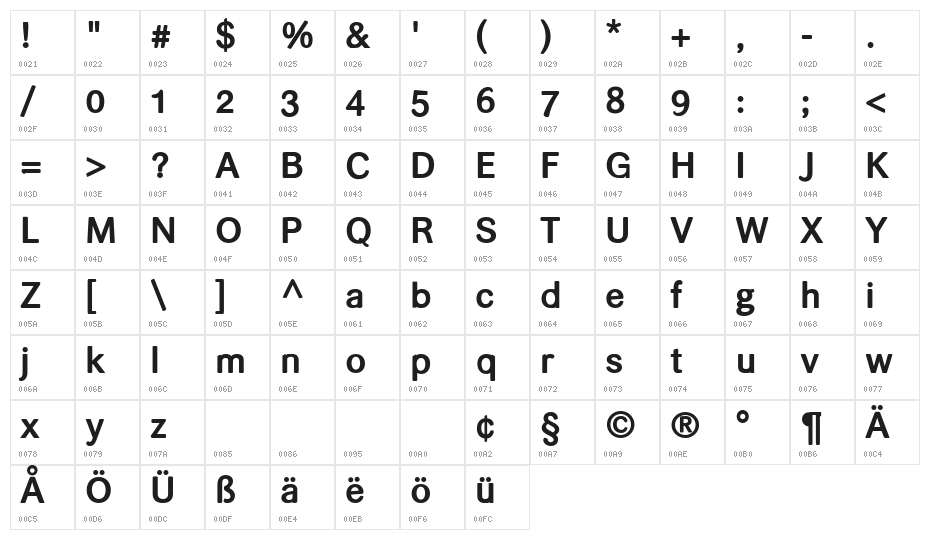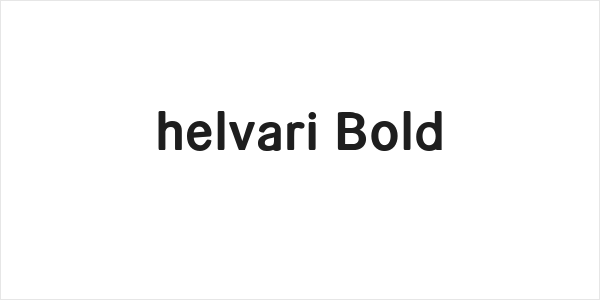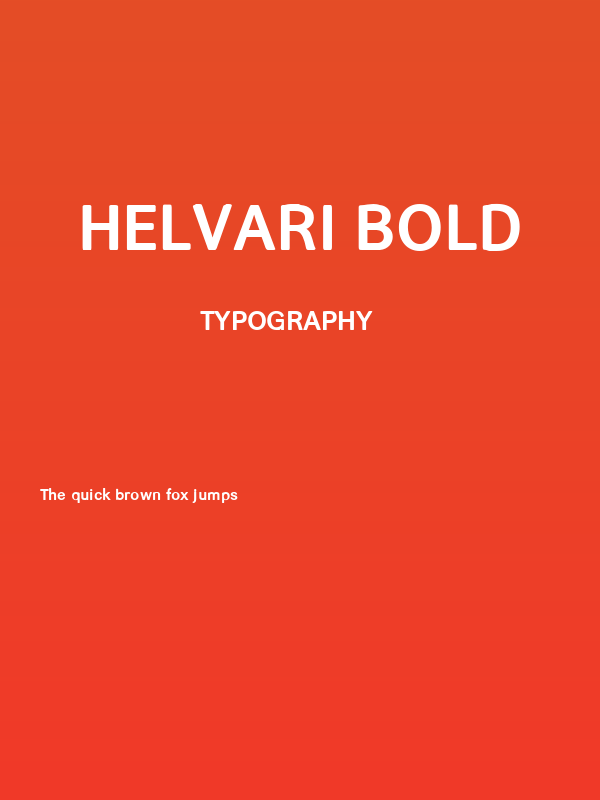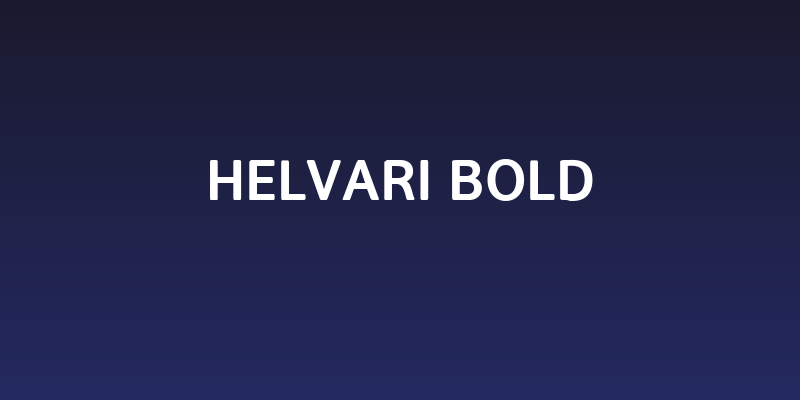
helvari Bold Font
helvari Bold Description
This font features a clean and modern sans-serif design with bold, uniform strokes that provide a strong presence on the page. The characters are well-balanced with consistent weight, making it highly legible across various sizes. Its geometric shapes and smooth curves give it a contemporary feel, suitable for both digital and print media. The font maintains a harmonious appearance with even spacing and a slightly condensed width, enhancing readability while maximizing space efficiency. Its versatility makes it ideal for a wide range of applications, from corporate branding to editorial design.
Use CaseHeadlines, Logos, Digital interfaces
Proposed ProjectsIdeal for corporate branding, editorial design, digital interfaces, and advertising.